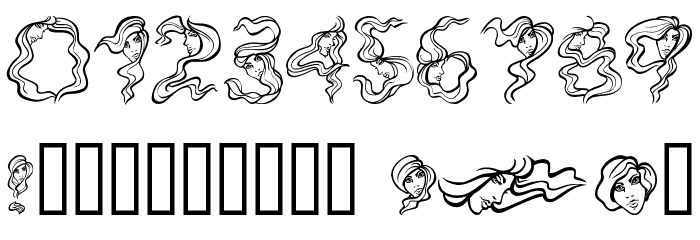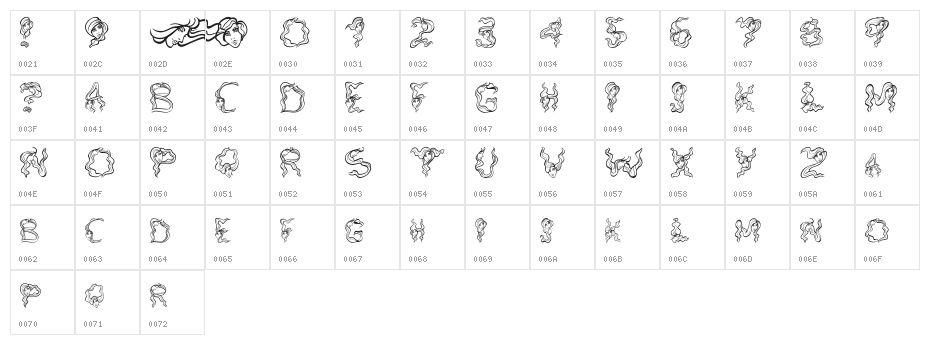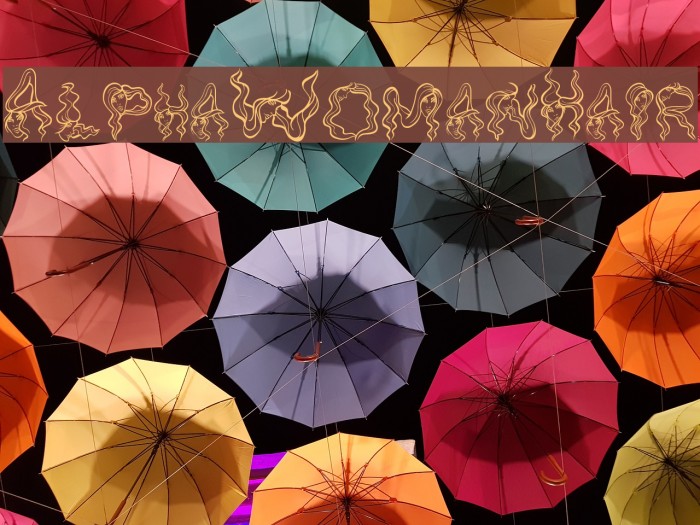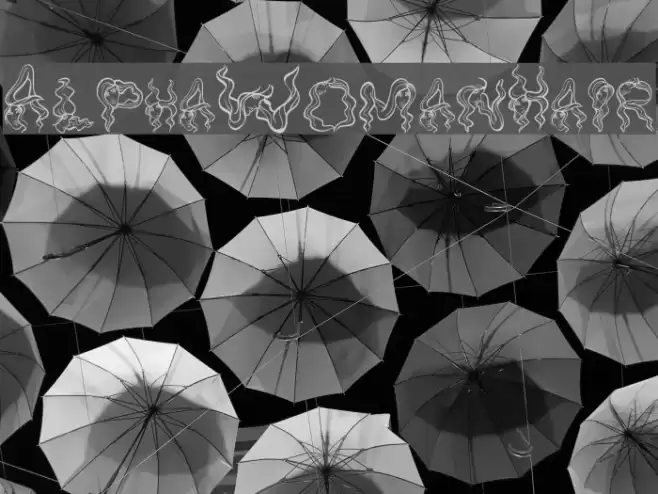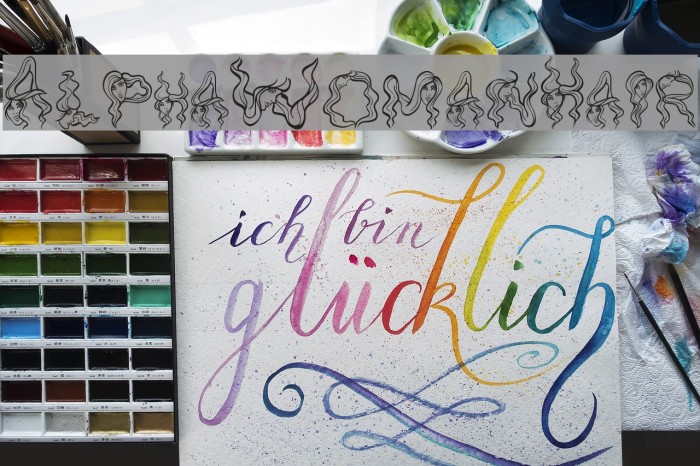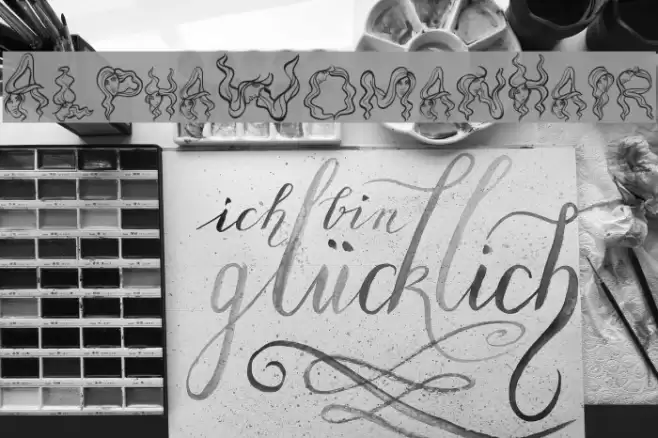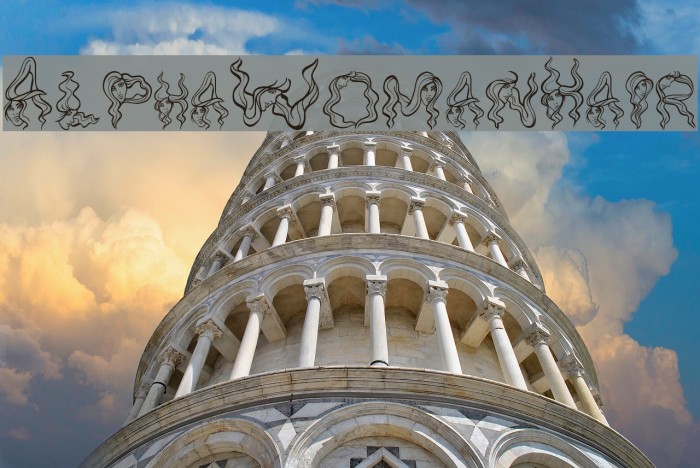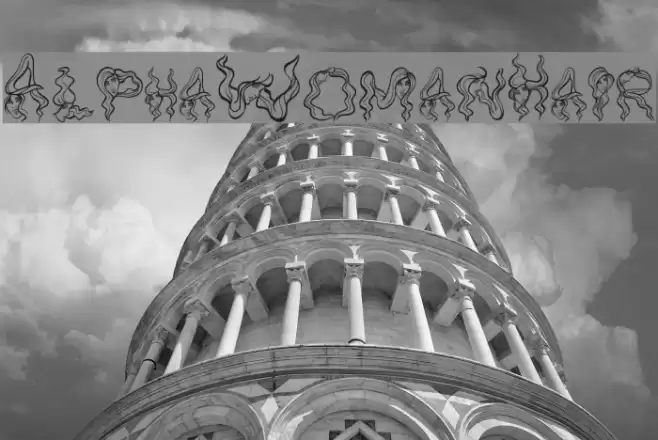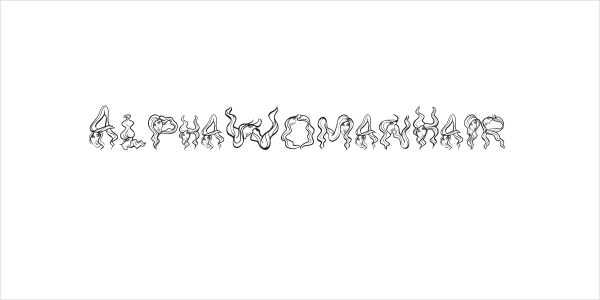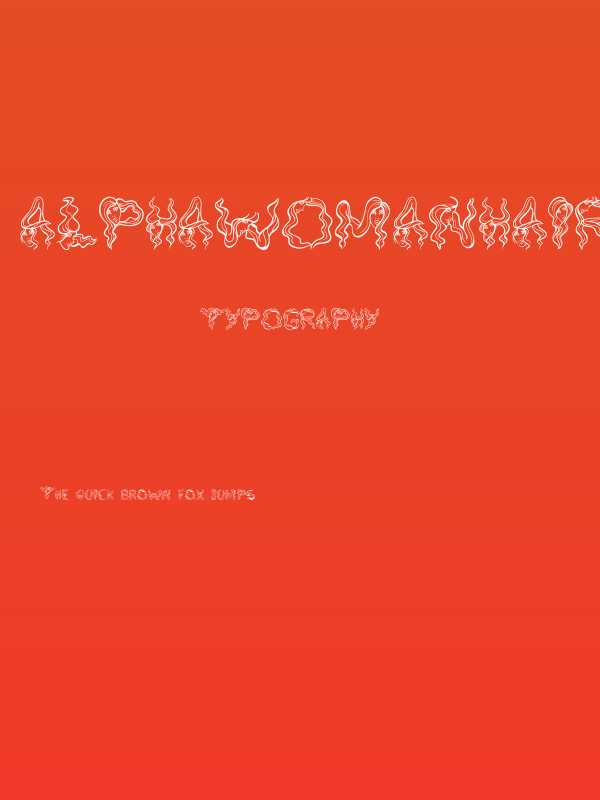
AlphaWomanHair Font
AlphaWomanHair Description
This unique decorative font features intricate designs where each letter is creatively integrated with flowing hair motifs, giving it a whimsical and artistic appearance. The characters are adorned with detailed illustrations of hair, making them stand out with a distinct personality. This font is highly stylized, with each letter resembling a work of art. The design is consistent across uppercase, lowercase, and numeric characters, maintaining the theme of flowing hair throughout. The special characters also incorporate these artistic elements, adding to the font's cohesive and imaginative style.
| Overall Style | Artistic and Whimsical |
| Use Case | Logos, Posters, Artistic Designs |
| Proposed Projects | Ideal for creative projects such as fashion branding, beauty product packaging, artistic posters, and any design work that requires a touch of elegance and creativity. |